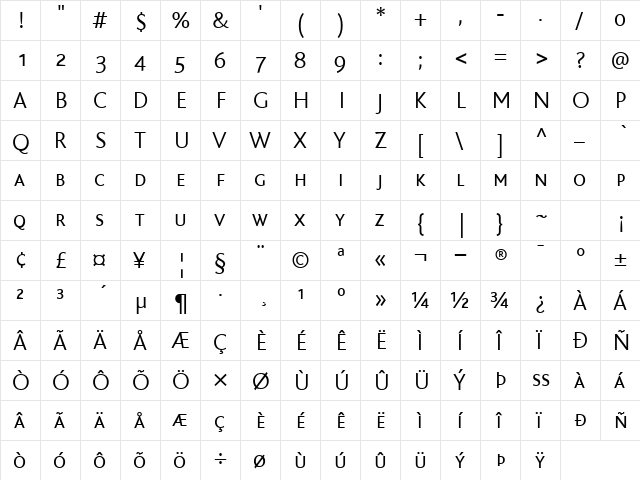
BlissCapsLight Regular
Design Context for BlissCapsLight Typeface
BlissCapsLight takes a measured approach to typography — its balanced proportions and neutral character make it a reliable workhorse for both digital and print work. The delicate stroke weight brings airiness and refinement to layouts.